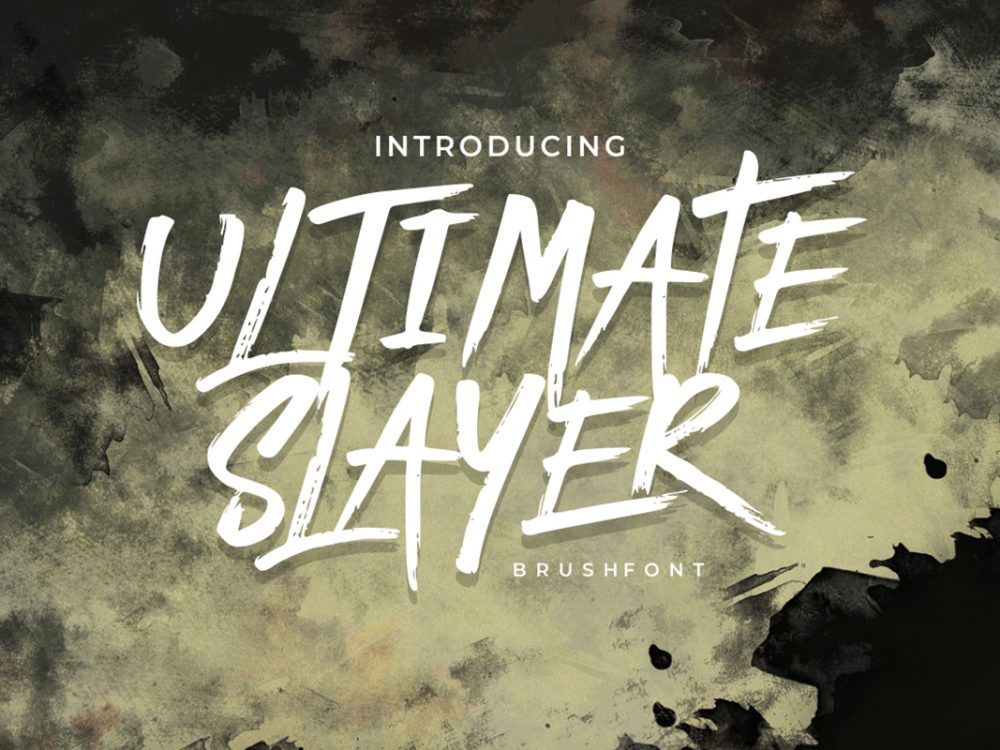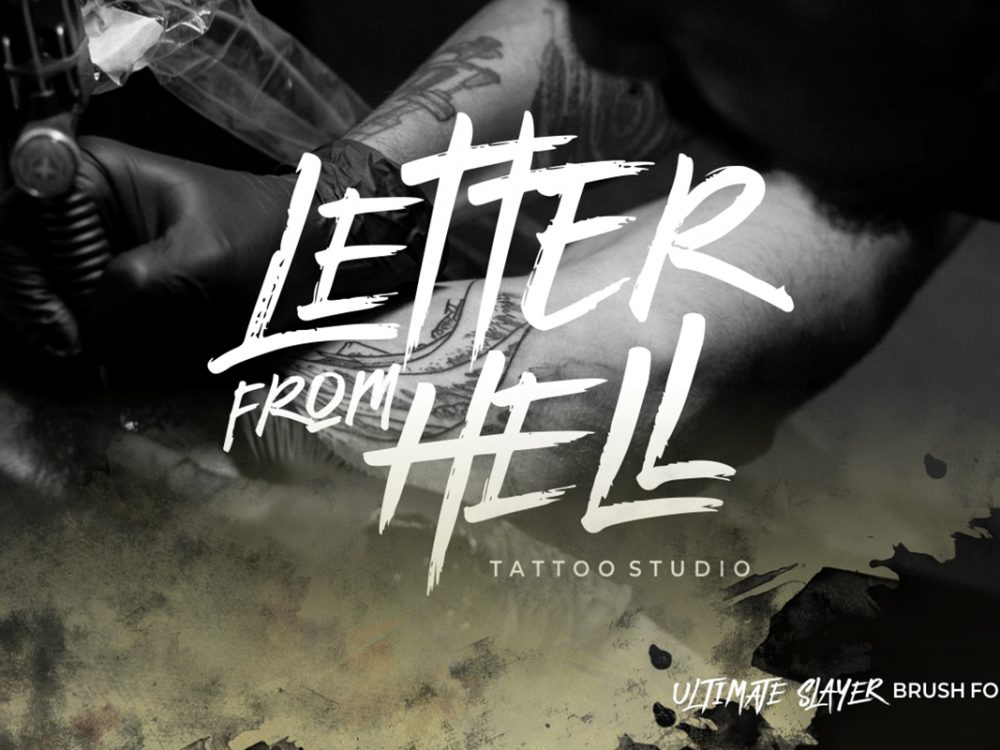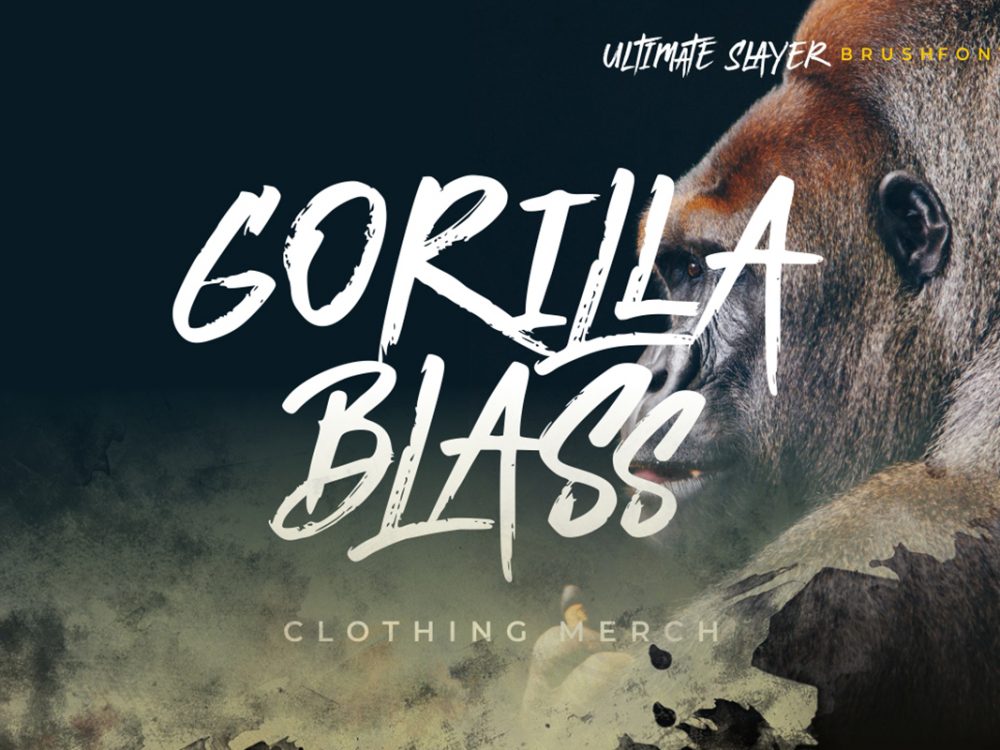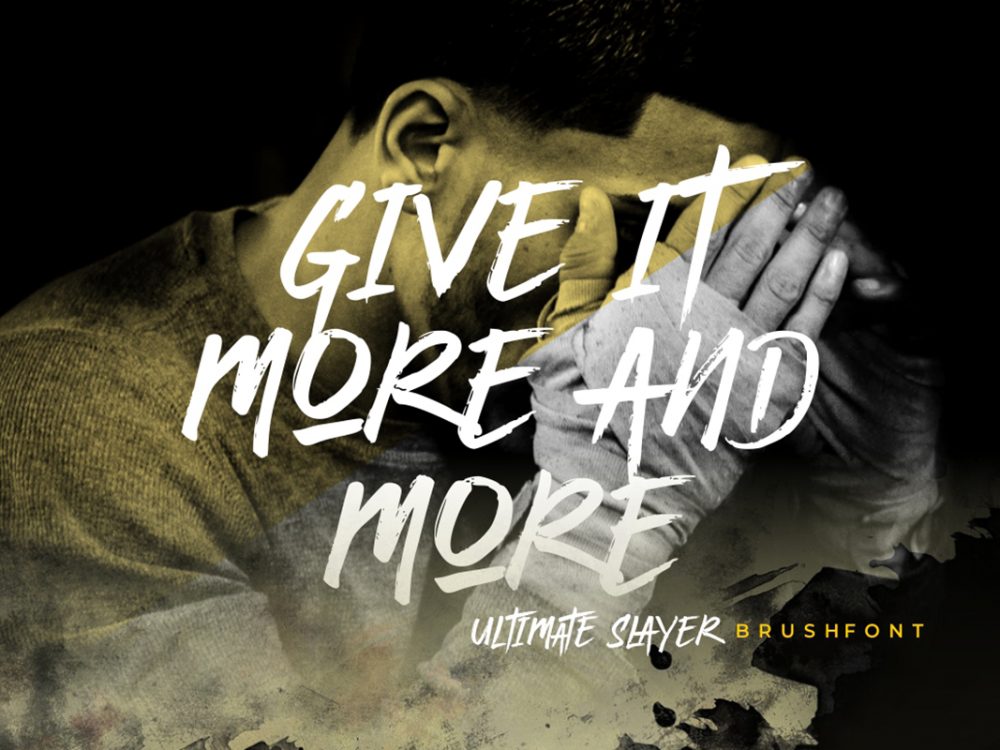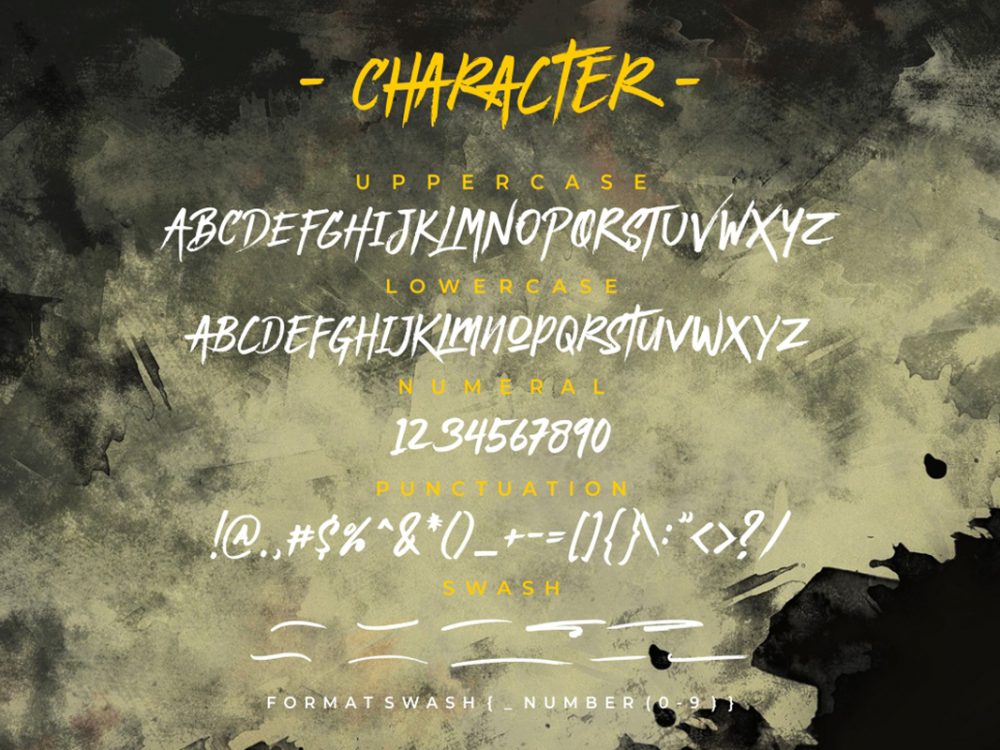
Ultimate Slayer Free Font
Ultimate Slayer Free Font is an interesting script font that simulates writing with a brush and will help you create various design projects in a modern style. You can use this font to create memorable posters, wedding invitations, cards, branding, flyers, and more. If you like it don’t forget to check out the full version.